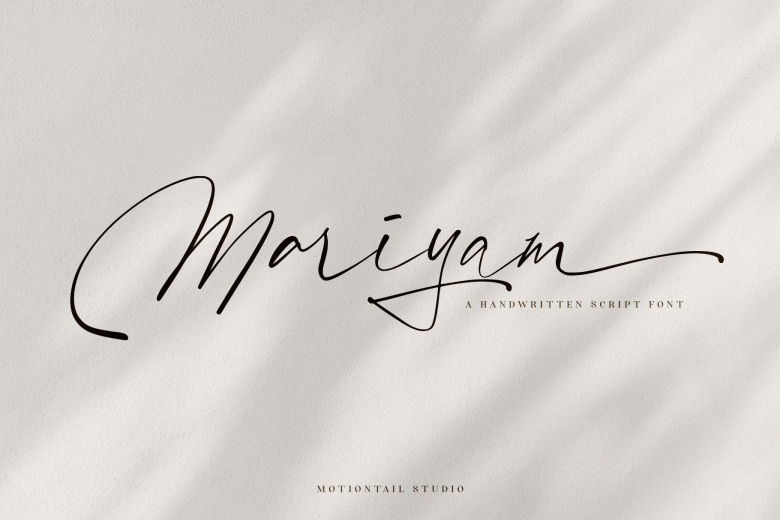
Mariyam Font
Mariyam Script Font
Introducing Mariyam Script Font, with the natural stroke of hand quick. You can use and enjoy Cherrils, for promotional material and anything. It has a clean, thin and smooth vibe and it will be a hit for any design that you want to add it to. This font is PUA encoded which means you can access all of the glyphs and swashes with ease!
Mariyam Script Font